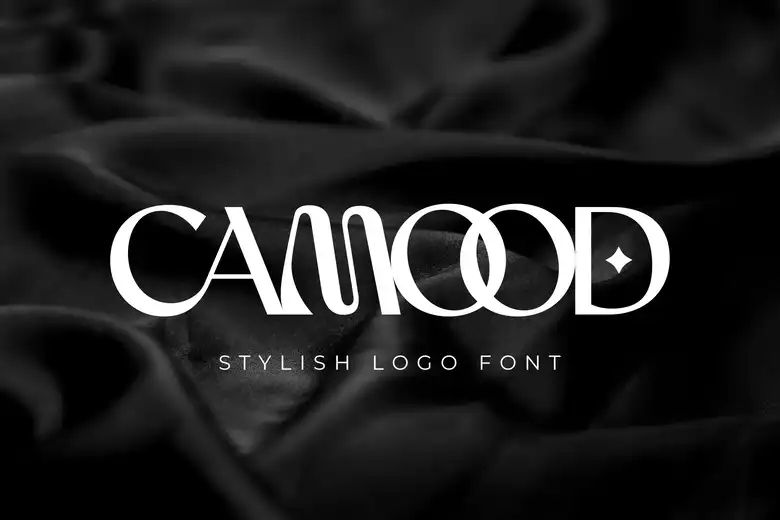
Camood Font
Camood Display is a fashionable logotype typeface featuring beautiful ornamentation, ideal in any branding, poster design, invitation design, and editorial design. Its specific letterforms and rounded lines make it a perfect option to produce outstanding visual identities.
Camood Logo Font